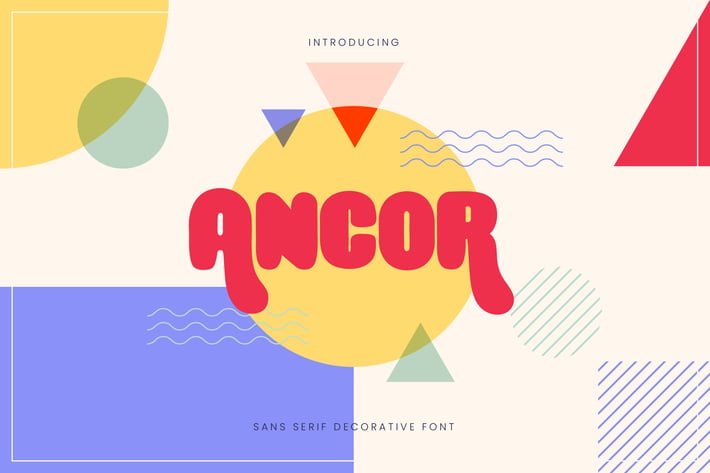
Ancor - Bold Fun Sans Serif Font
Are you looking for a bold fun sans serif font? We can help! Try to download our Ancor font. The font is suitable to use for casual, event, art, music and children related occasion :)